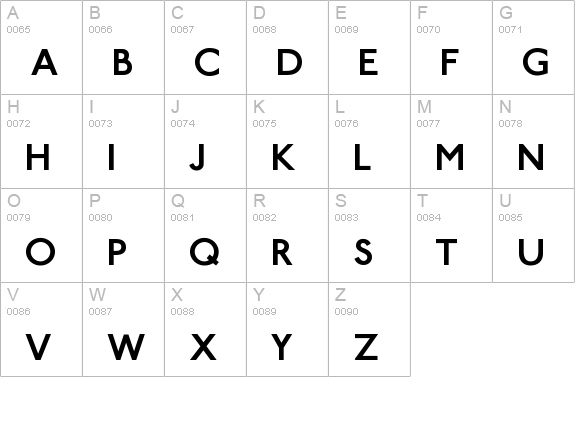
PaddingtonSC Bold Small Caps-Demi is a strong, high-contrast variant in the PaddingtonSC typeface family \xE2\x80\x94 well suited to headlines, attention-grabbing titles, and strong calls-to-action.
PaddingtonSC Bold Small Caps-Demi font is a stylish and bold typeface that exudes confidence and sophistication. With its small caps design, it adds a touch of elegance to any project, whether it's a logo, headline, or body text. The bold weight of this font commands attention and ensures that your message is conveyed with impact. Each letter is meticulously crafted with precision and attention to detail, resulting in a clean and professional appearance. The small caps feature of this font allows for consistent and harmonious typography, making it perfect for creating a cohesive and polished look. It adds a subtle touch of distinction to your designs, setting them apart from the ordinary. What sets PaddingtonSC Bold Small Caps-Demi font apart is that it is freely available to download at FontsMarket.com. This means you can easily access and use this font in your projects without any restrictions. Whether you're a designer, a student, or someone looking to enhance their creative projects, this font is a valuable asset that won't cost you a penny. So why wait? Download PaddingtonSC Bold Small Caps-Demi font today and elevate your designs to new heights. Let its boldness and small caps charm captivate your audience and leave a lasting impression. With this font, you have the freedom to create extraordinary designs that stand out from the crowd.